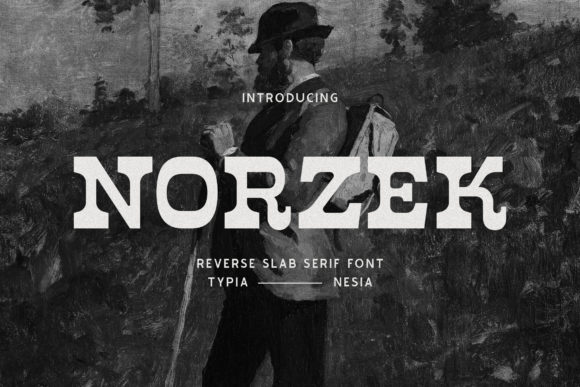
Norzek Font
Norzek is a cool, bold and western looking display font. Add this font to your most creative ideas, and notice how it makes them stand out!